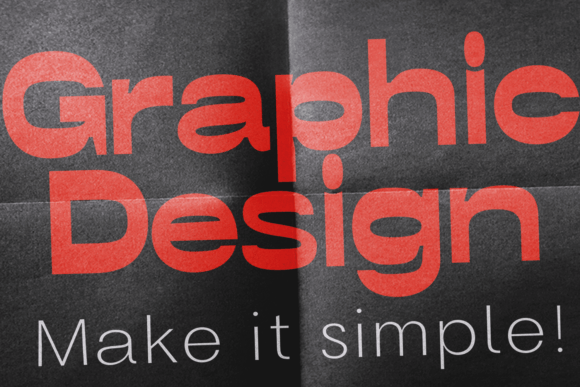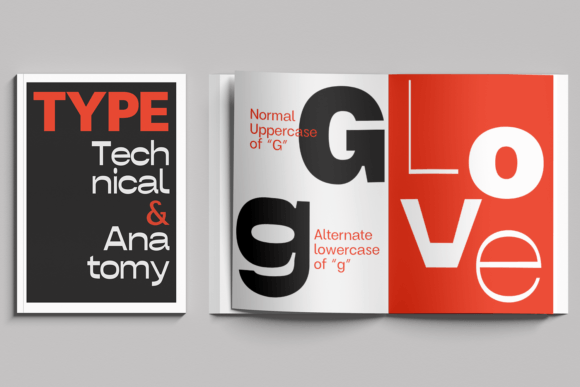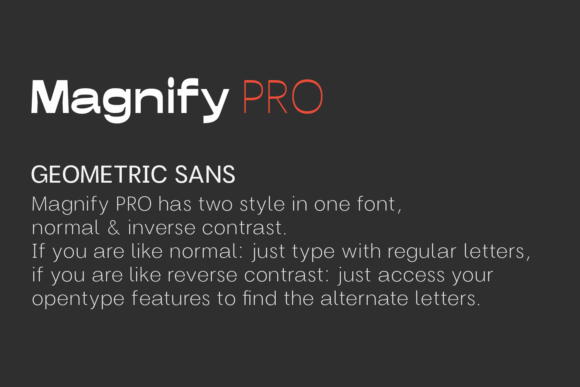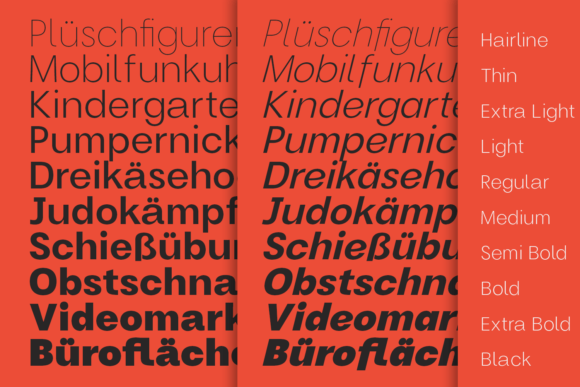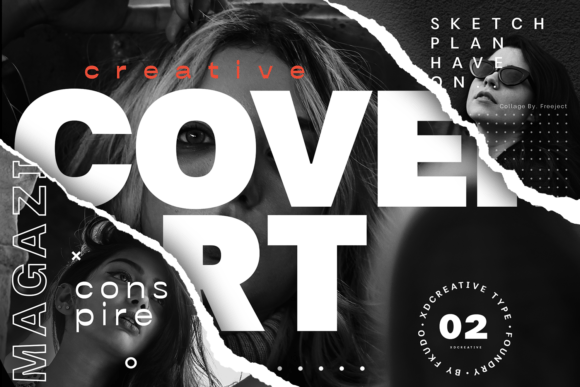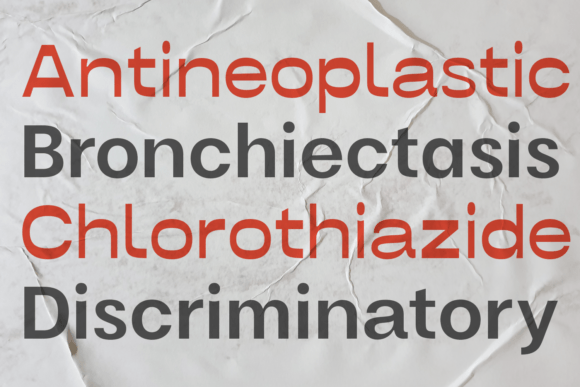
Introduction to Magnify Pro Font
Magnify Pro is a sleek and modern sans serif font that exudes sophistication and elegance.
Its clean and sharp letterforms are perfectly crafted for titles, headlines, and branding The fontโs minimalist design and generous spacing create a sense of openness and clarity, making it ideal for any project that requires a professional and refined look.
Key Features of Magnify Pro Font
Why Choose Magnify Pro Font?
Magnify Pro Font offers exceptional quality and versatility, making it a valuable addition to your design toolkit. Whether you’re creating for personal projects or commercial use, Magnify Pro Font delivers professional results.